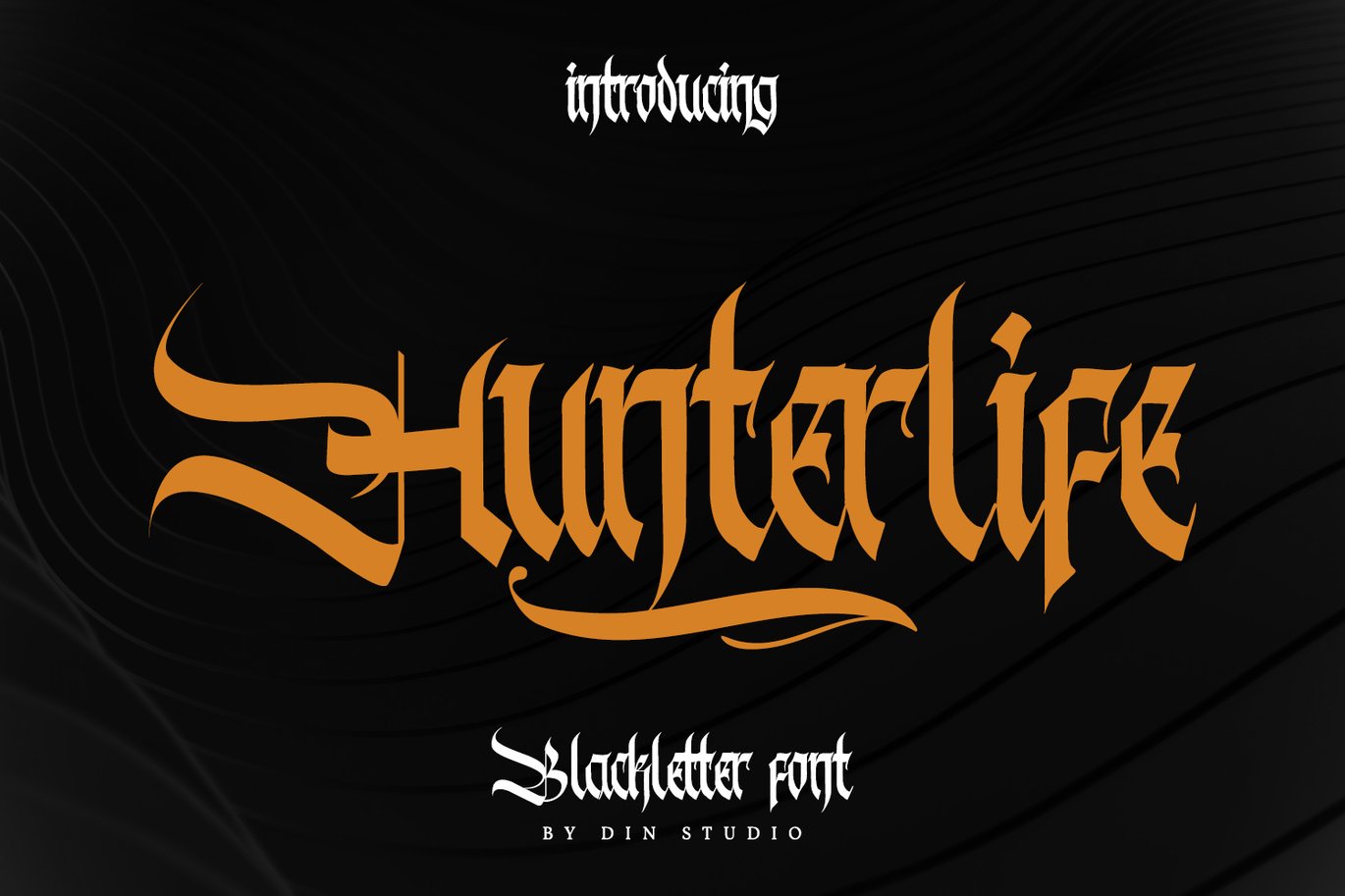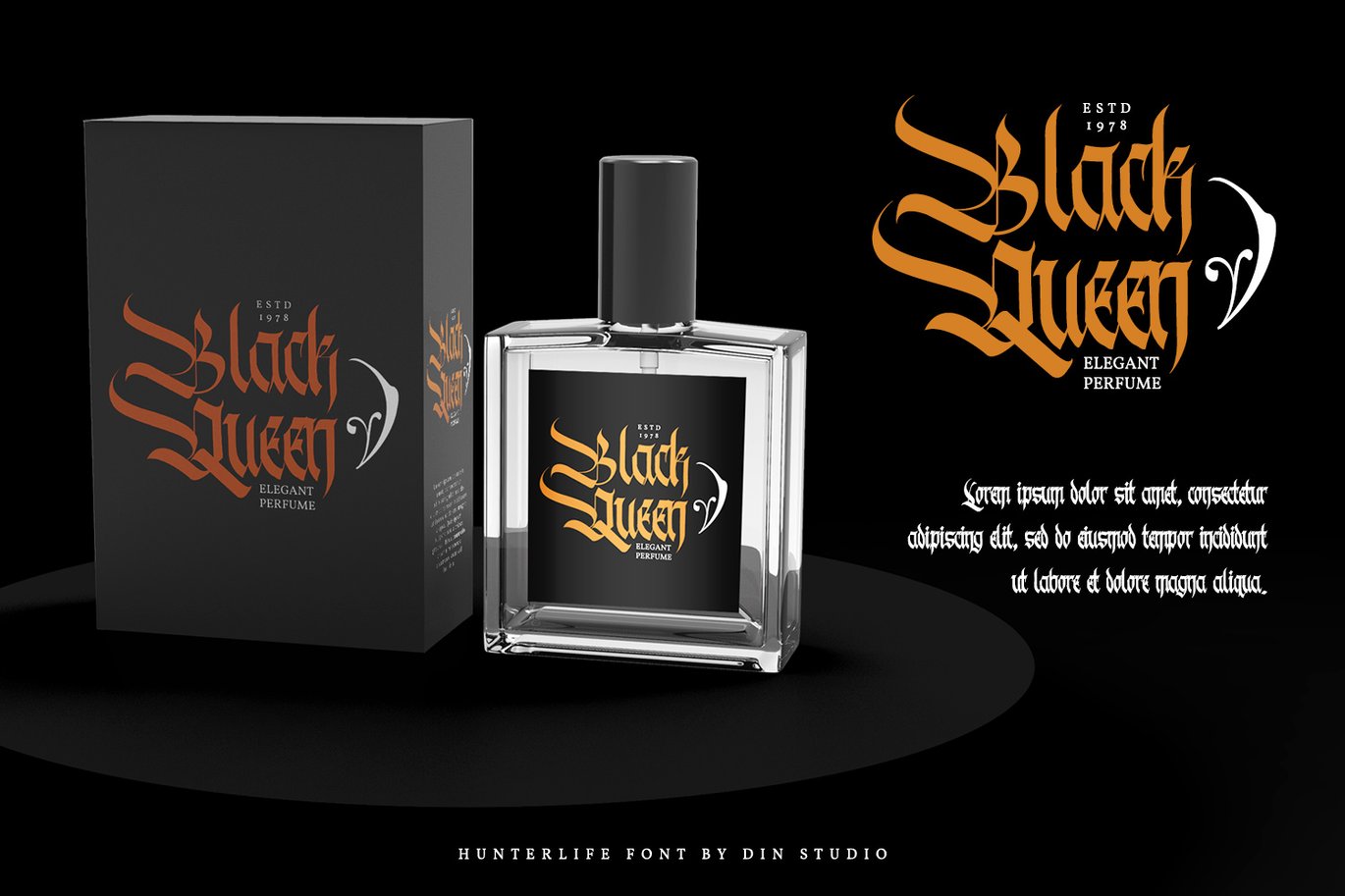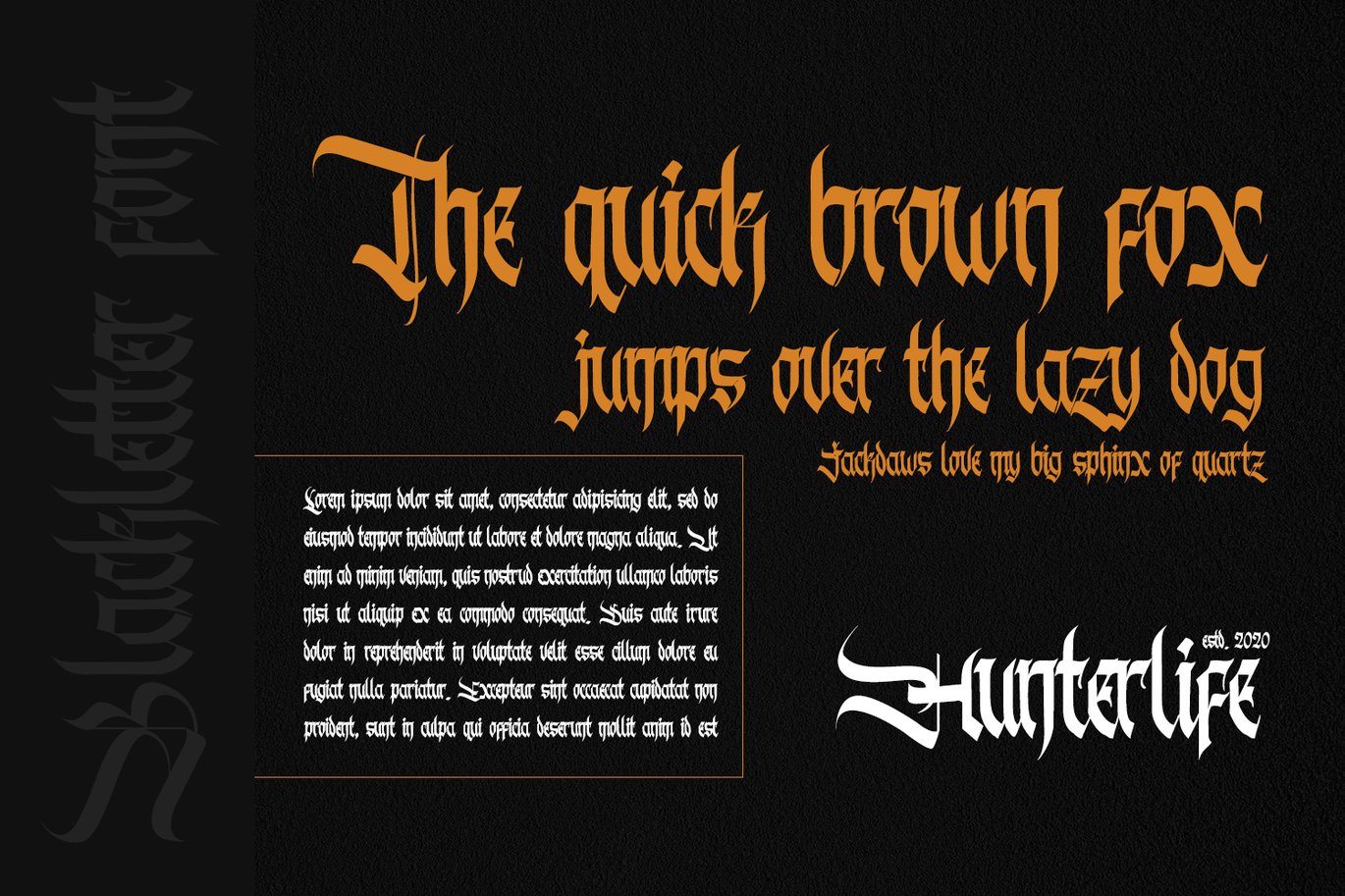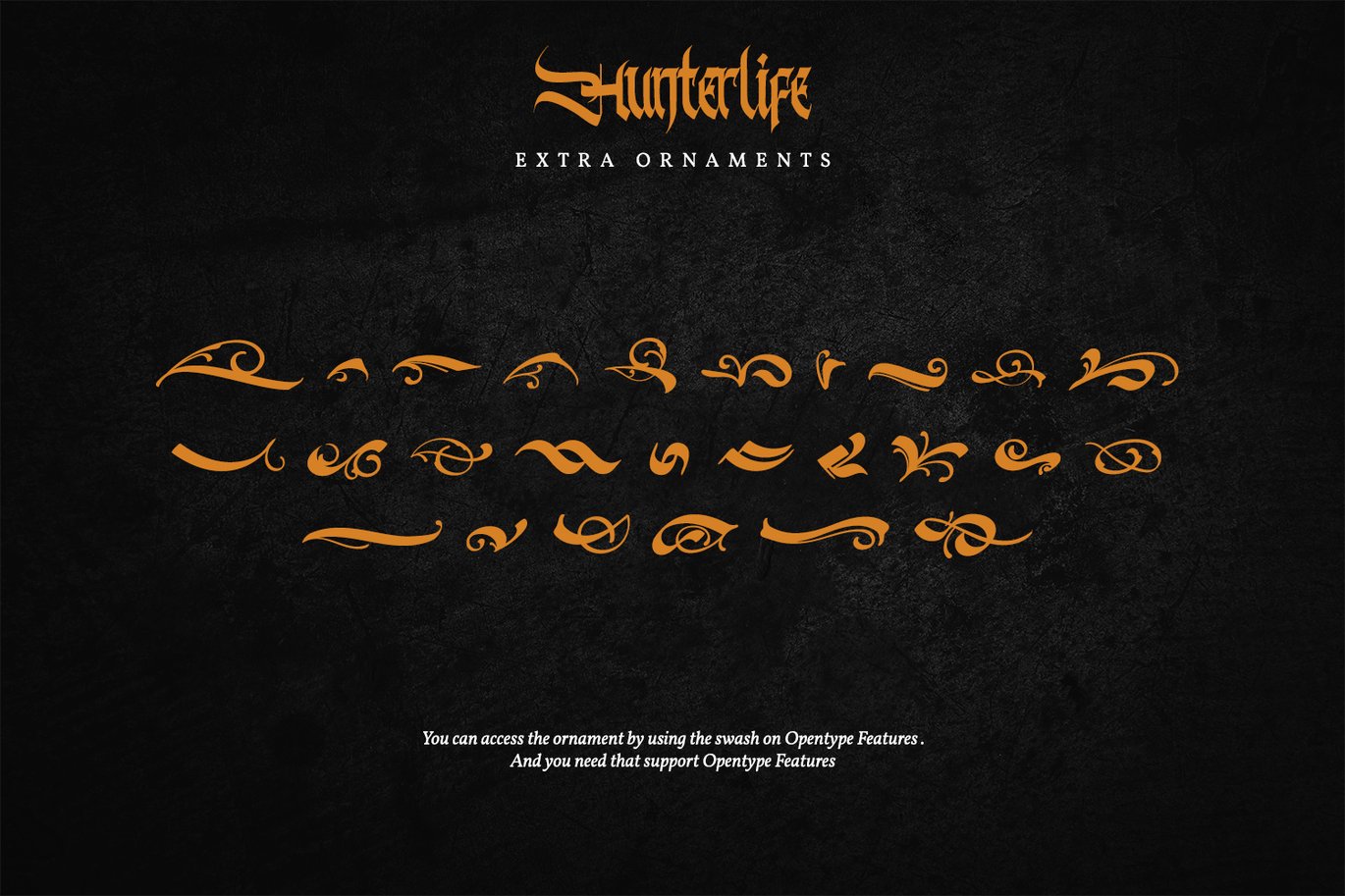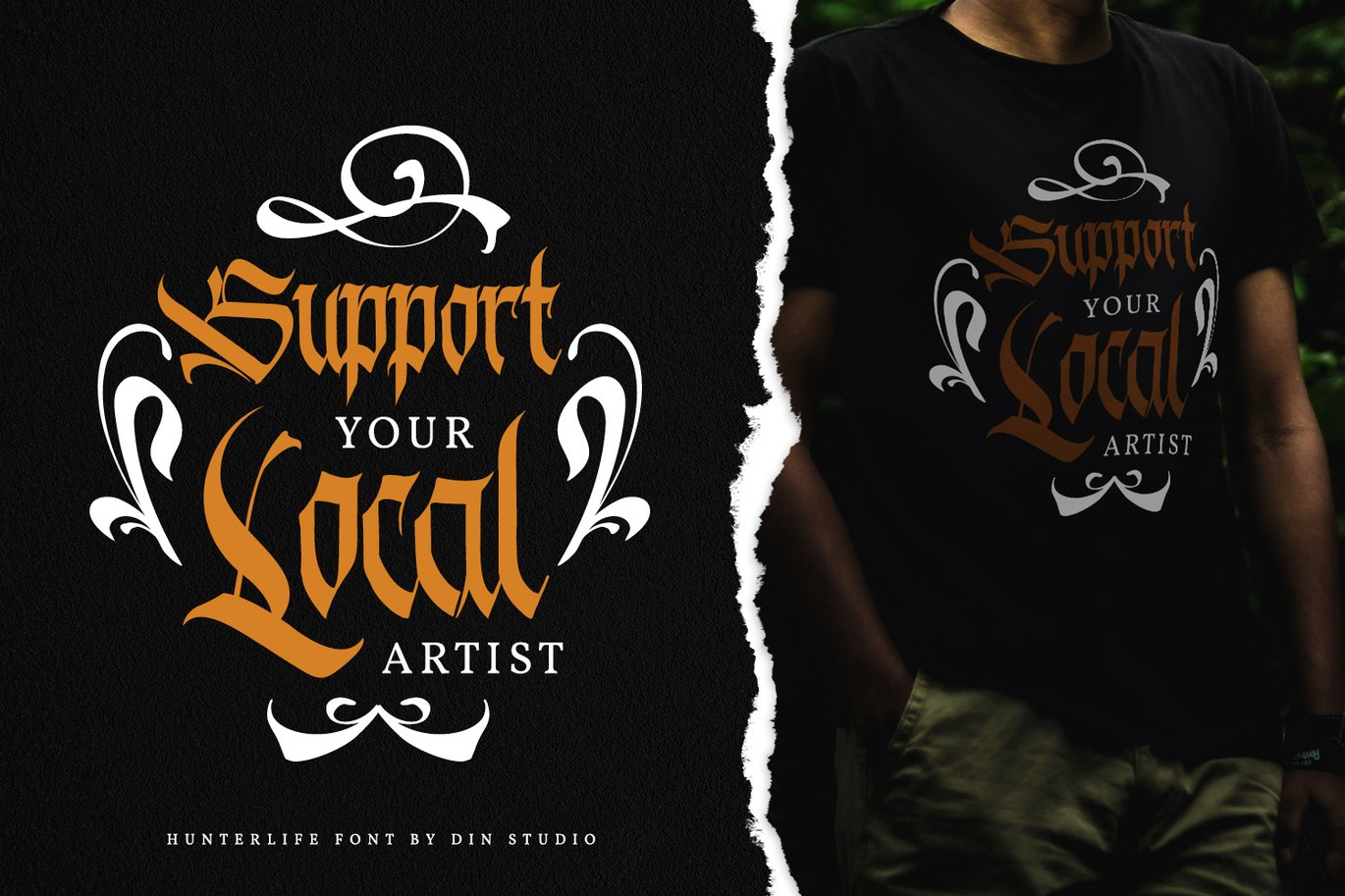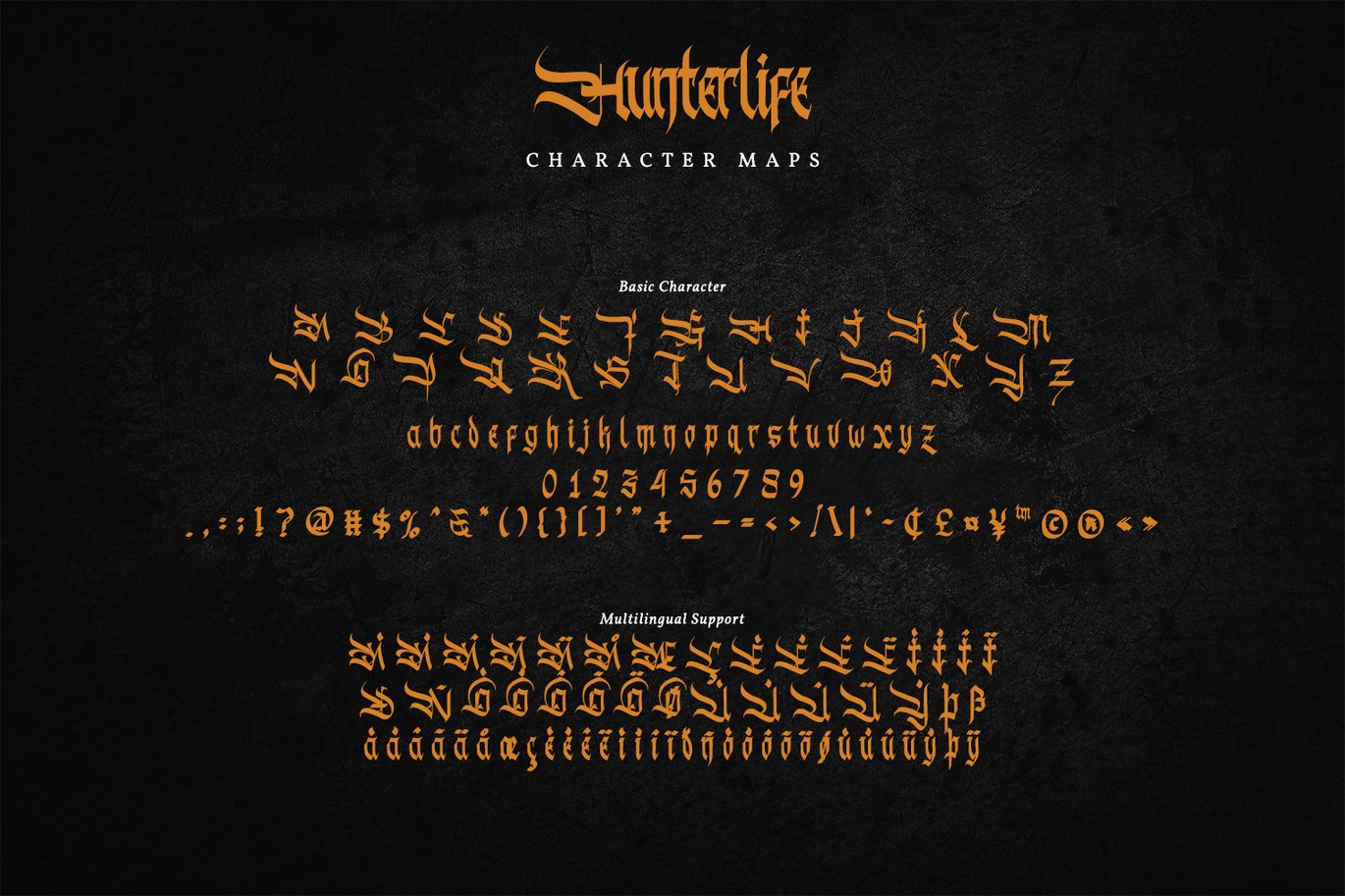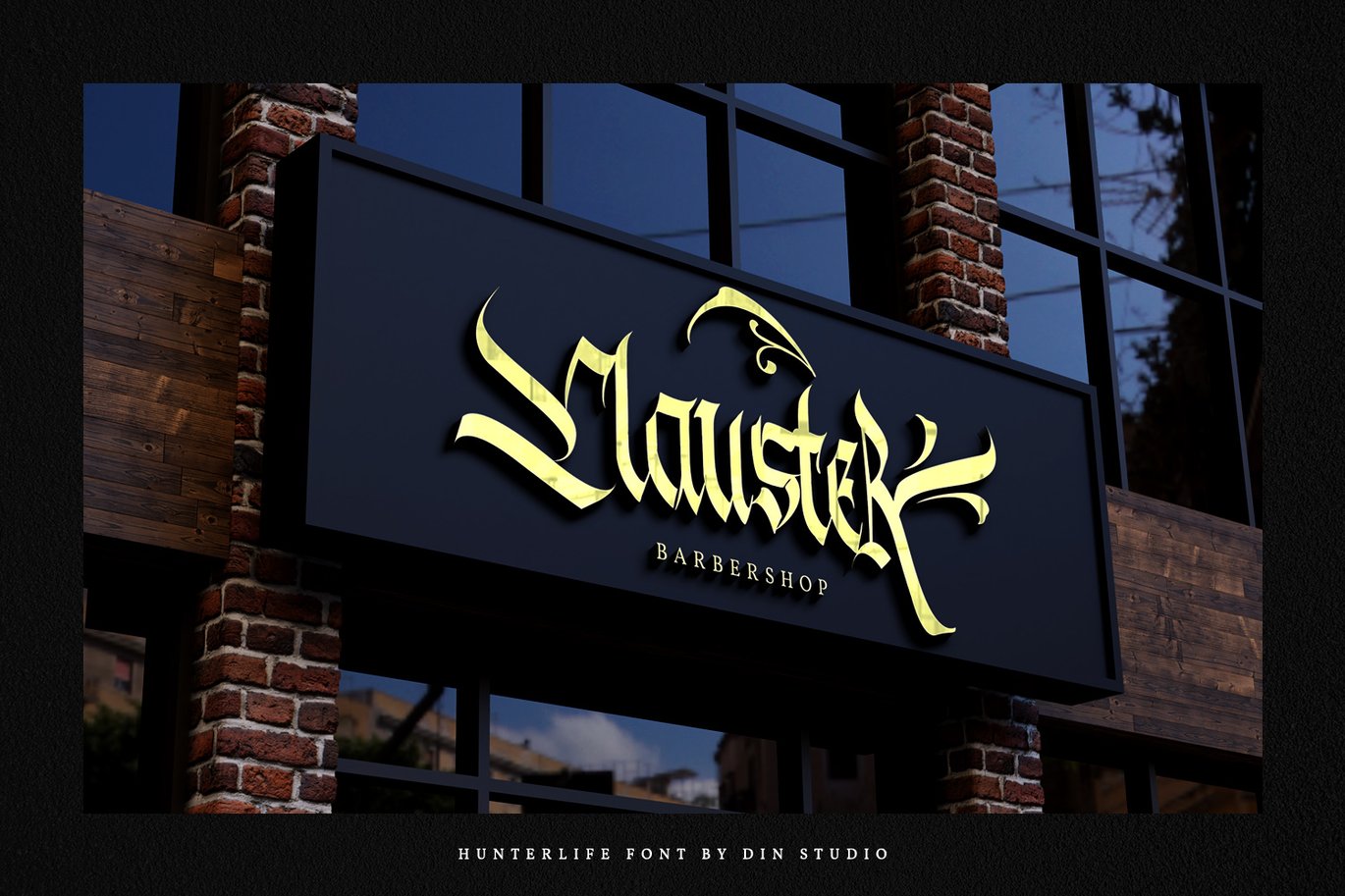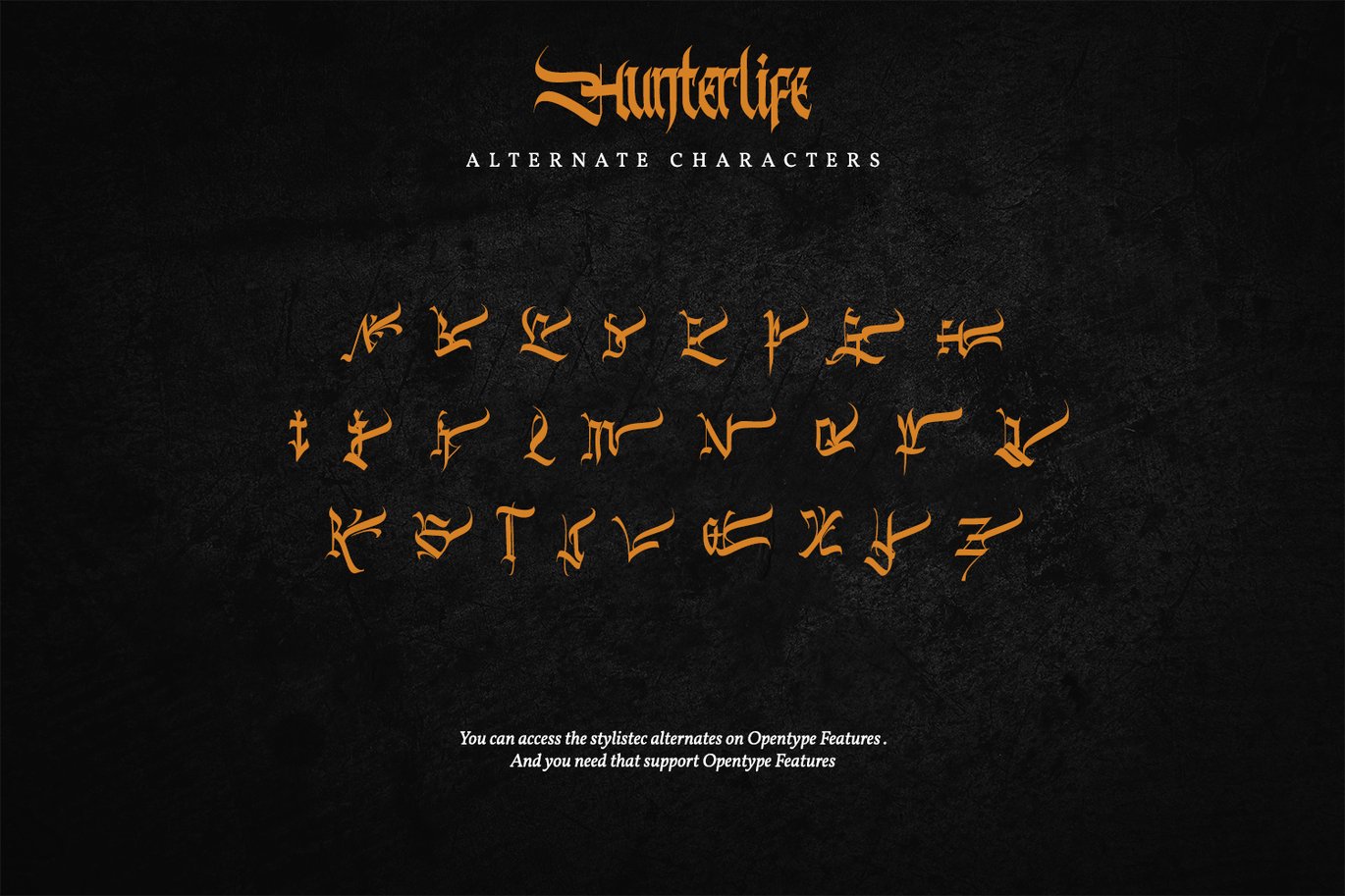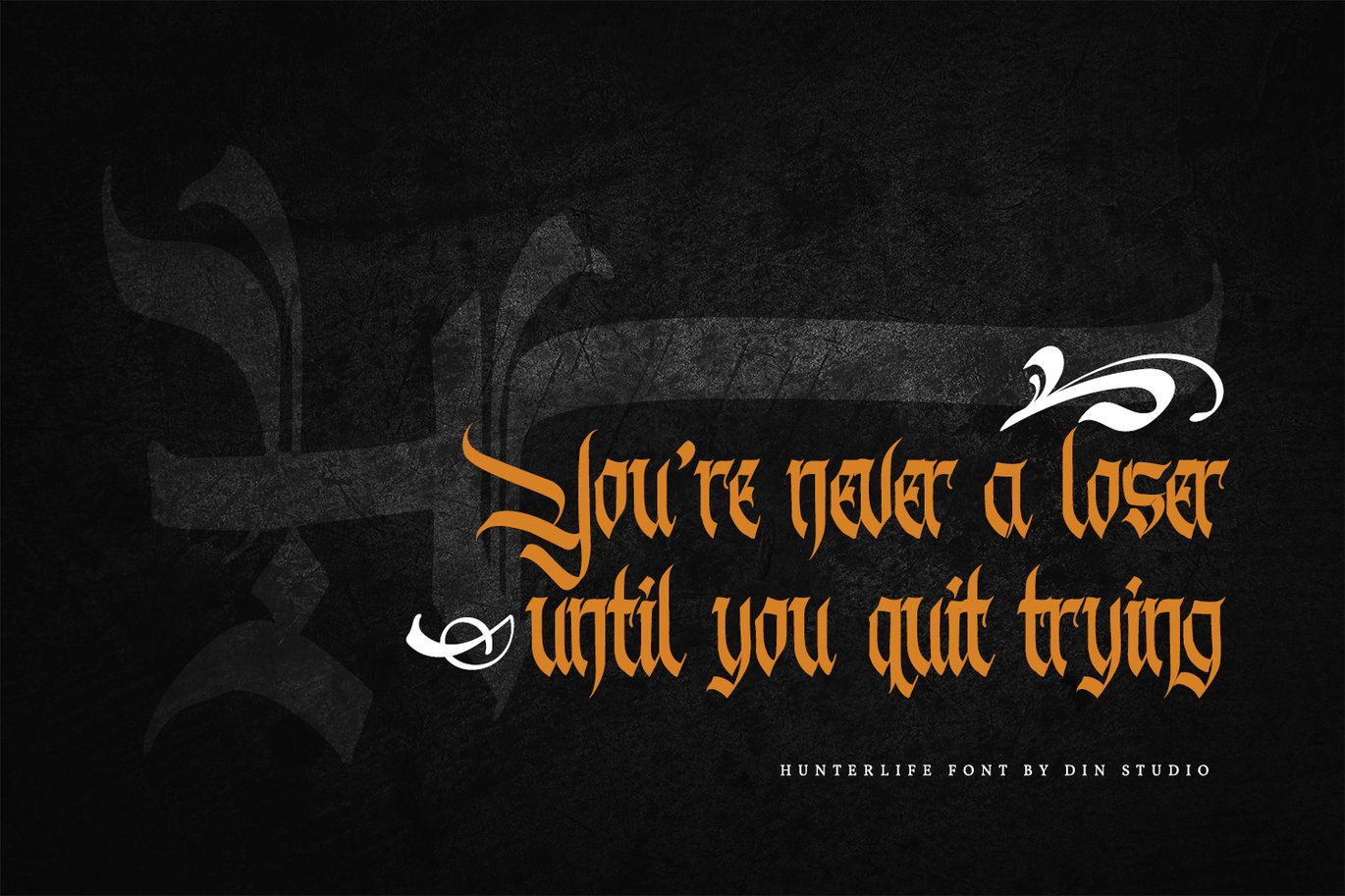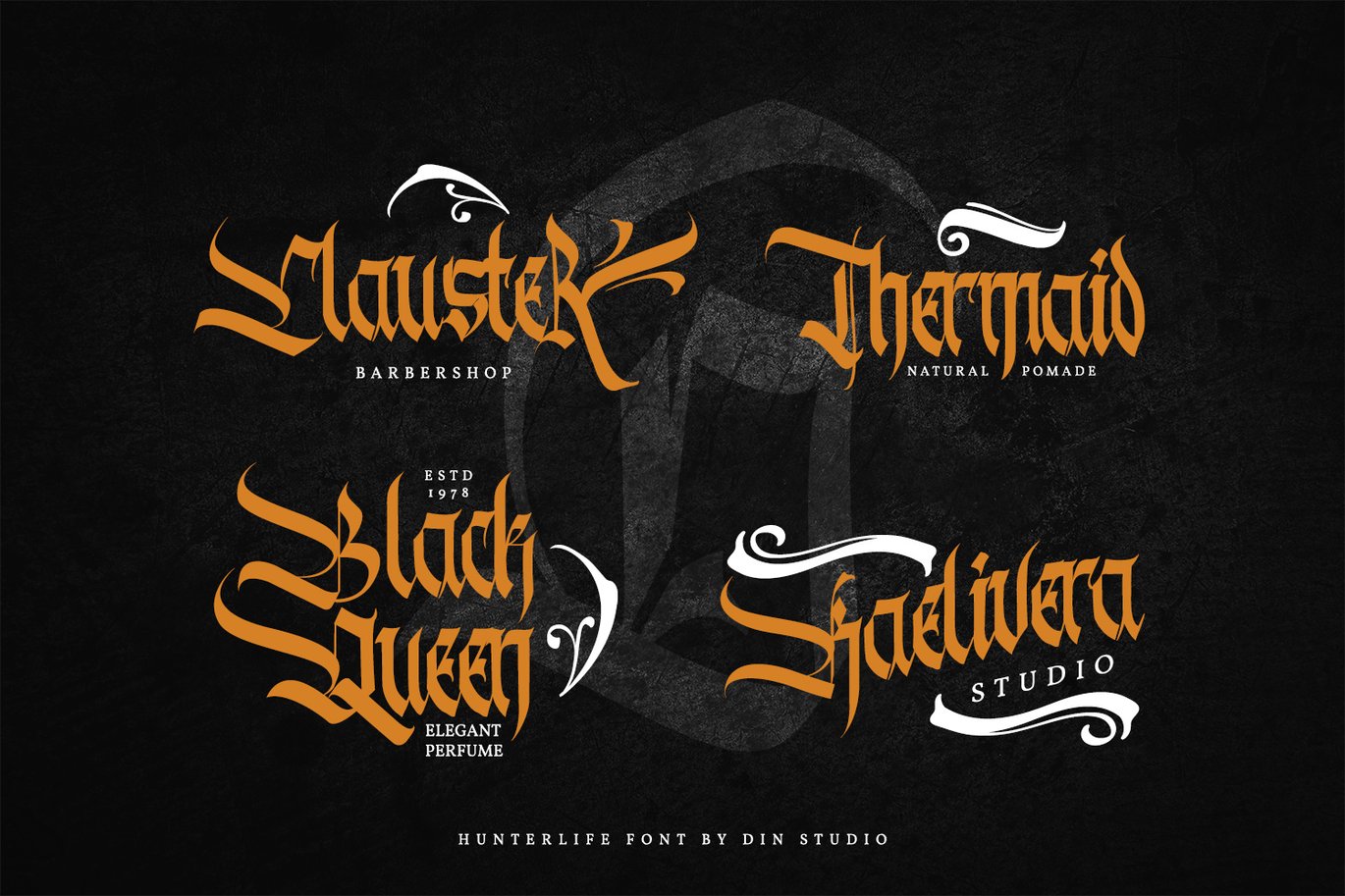
Hunterlife-Blackletter Font
Hunterlife is authentic and modern blackletter font. The font is suitable for any branding project like logo, t-shirt printing and many more. Outstanding in a wide range of contexts.
- Accents (Multilingual characters)
- Extra Ornaments